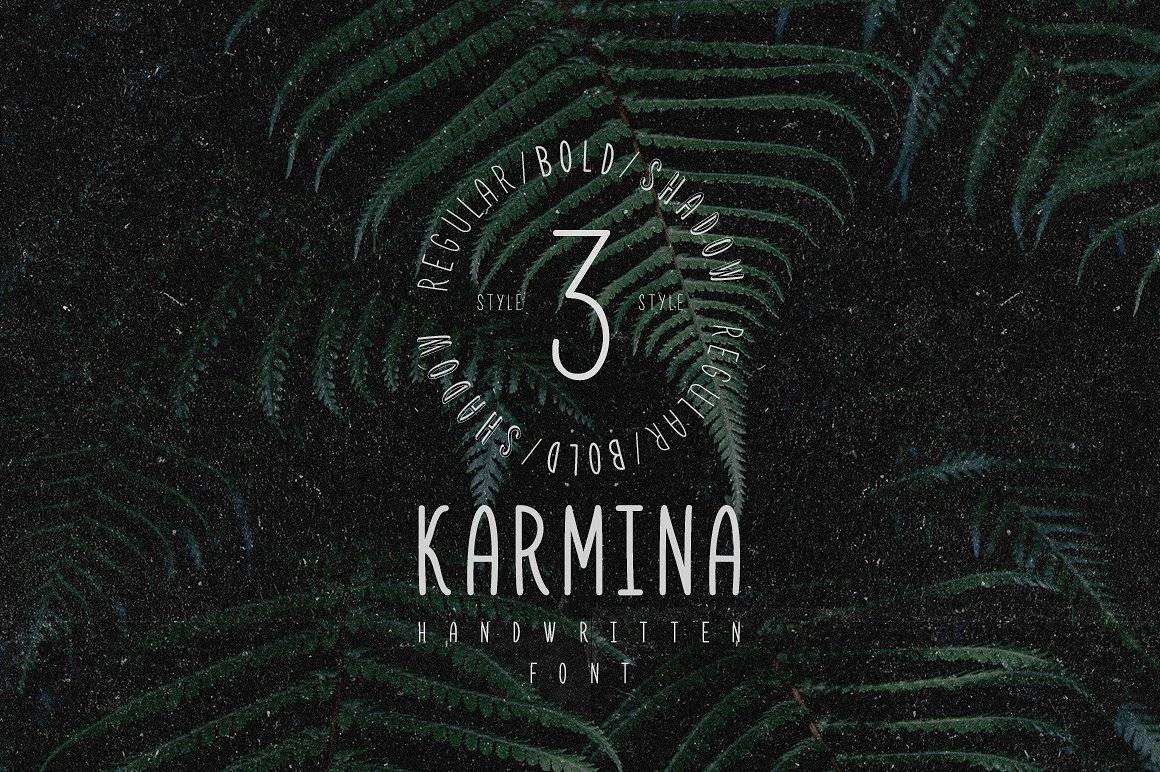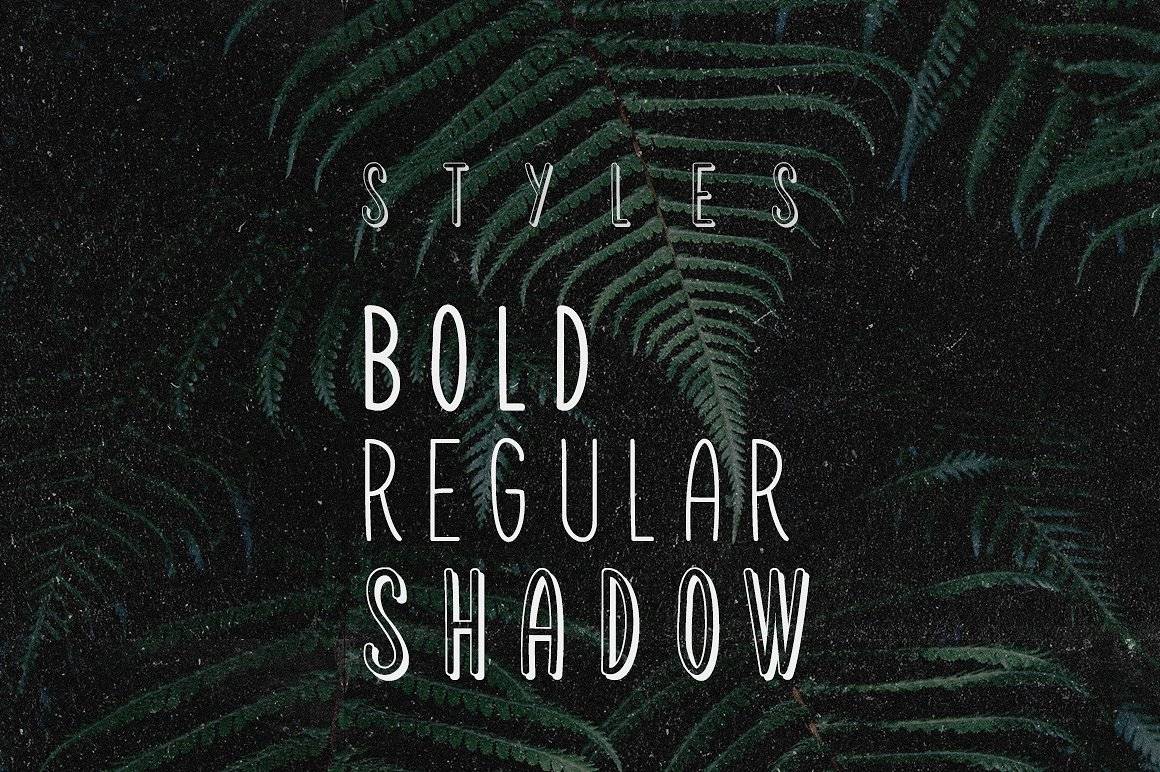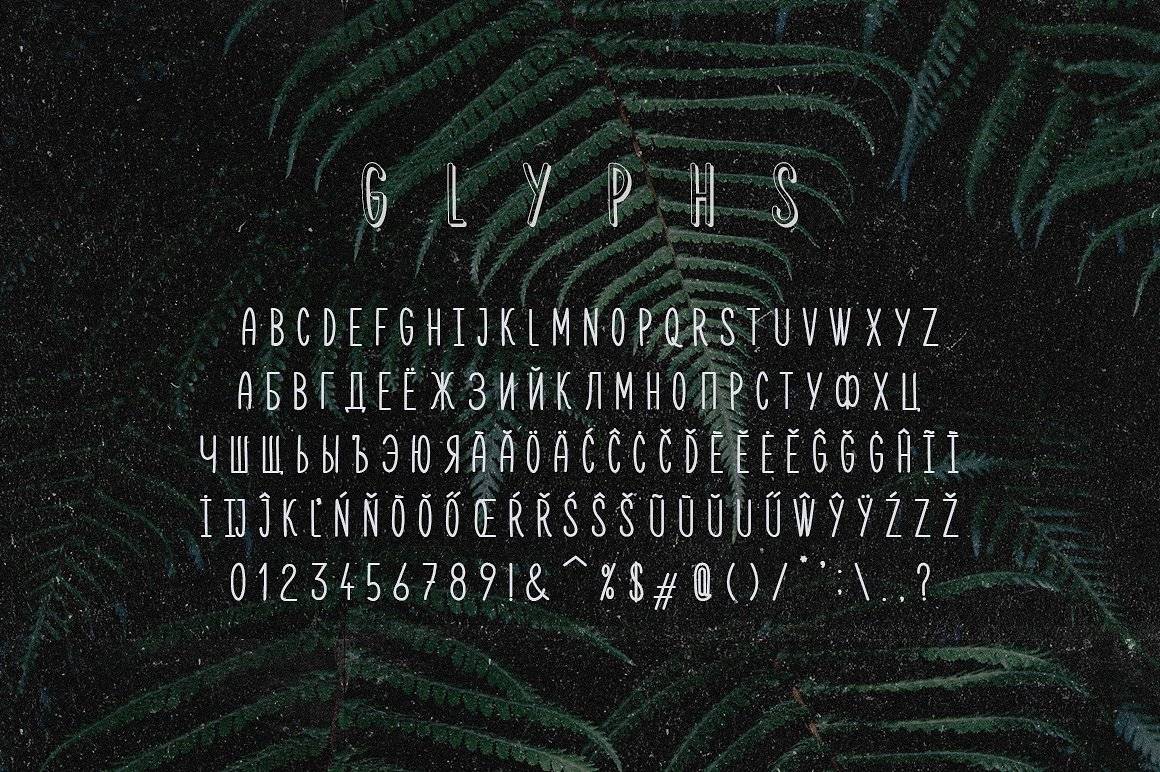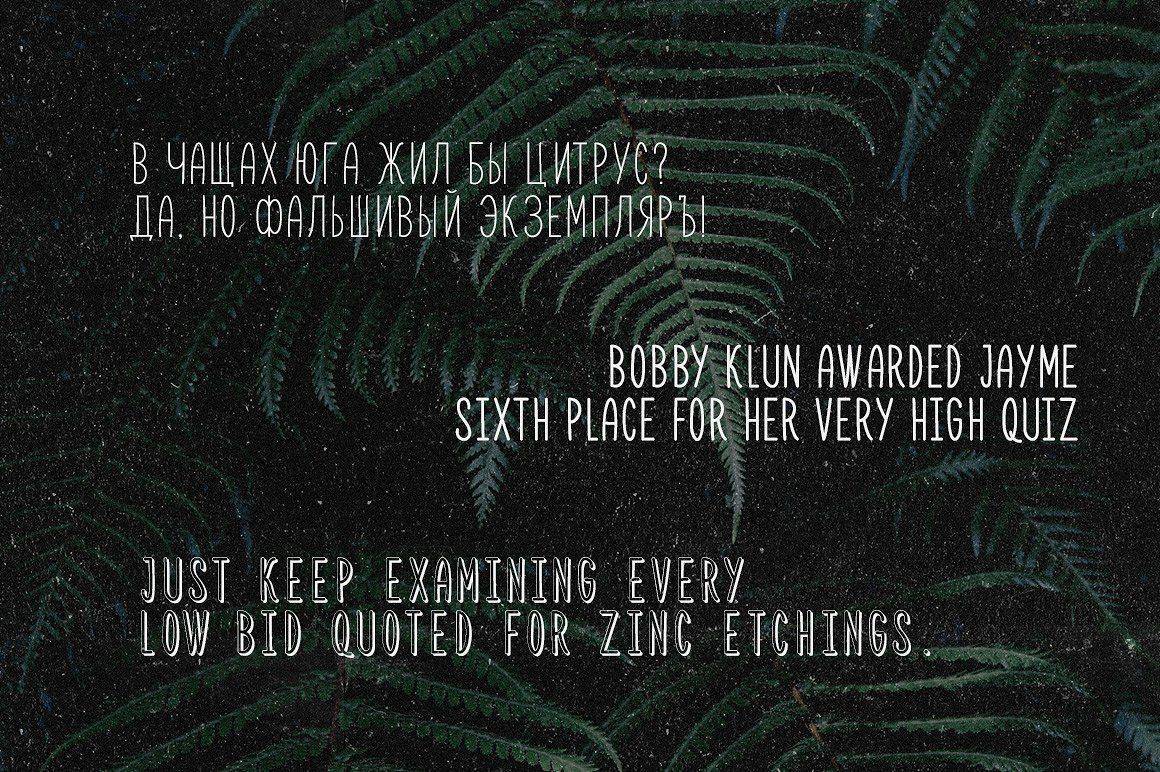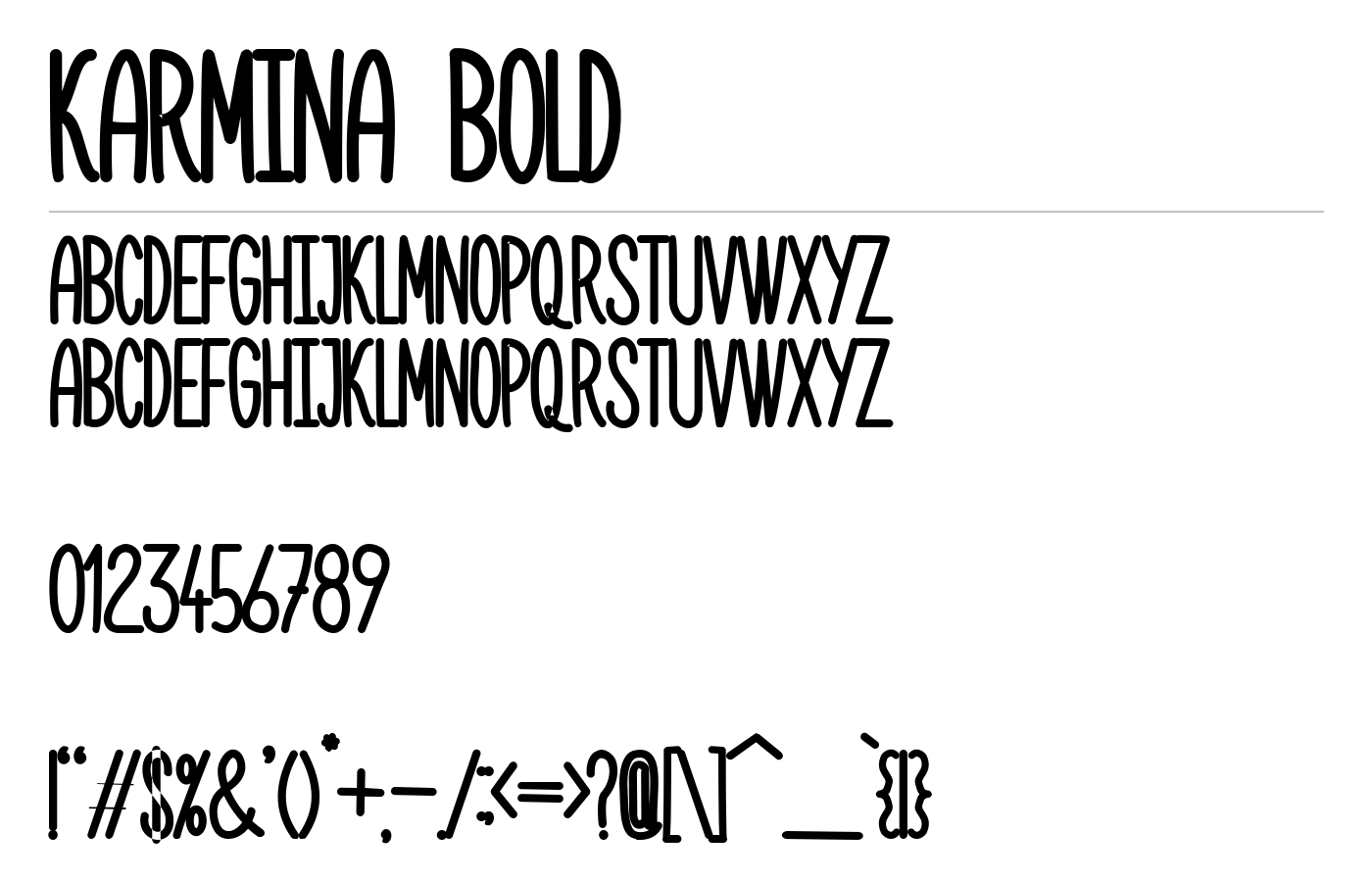
Karmina Bold is a playful and quirky handwritten font characterized by tall, narrow letterforms with rounded edges and a casual, friendly vibe. Its consistent weight and clean lines make it easy to read while maintaining a distinct, whimsical personality perfect for creative projects, invitations, and informal branding. This font works well where a warm, approachable tone is desired, adding charm without sacrificing clarity.
Karmina – Handwritten Font
About Karmina – Handwritten Font
| Font family | Karmina – Handwritten Font |
| Languages supported | Latin, Greek, Cyrillic, Symbols |
| Designer | Dmitry Mashkin |